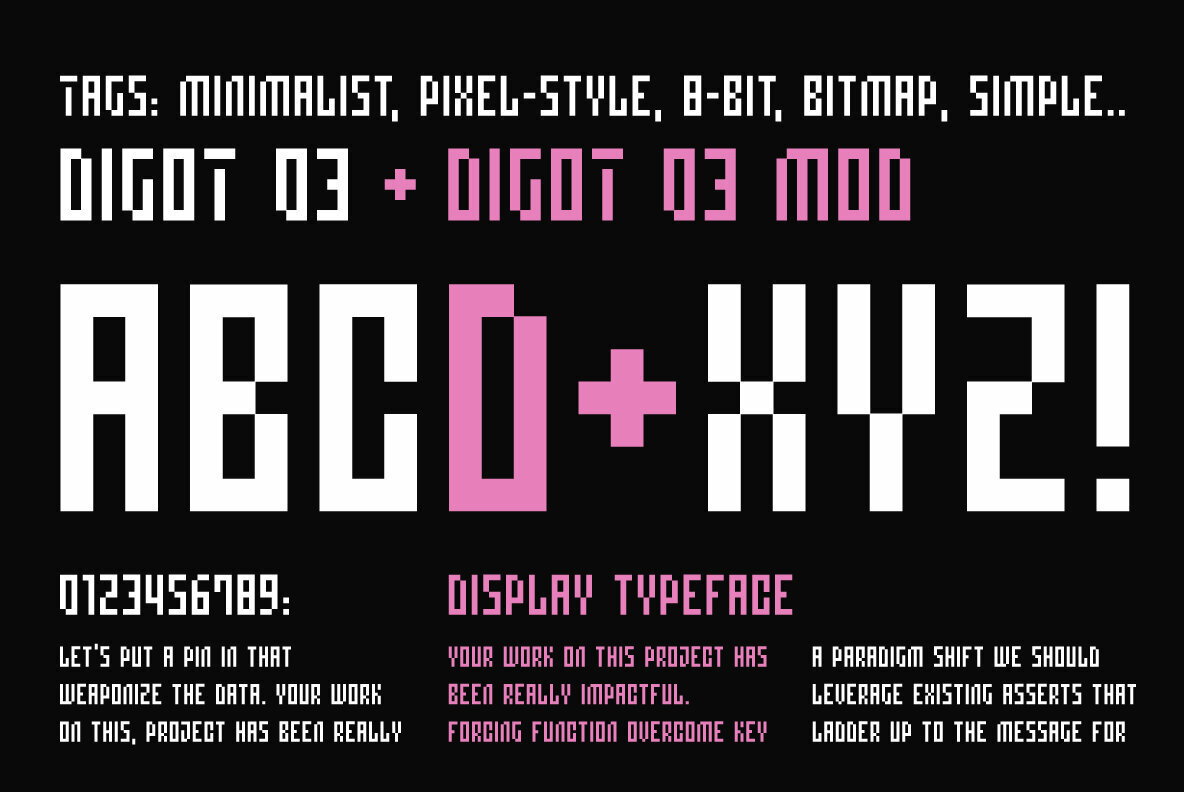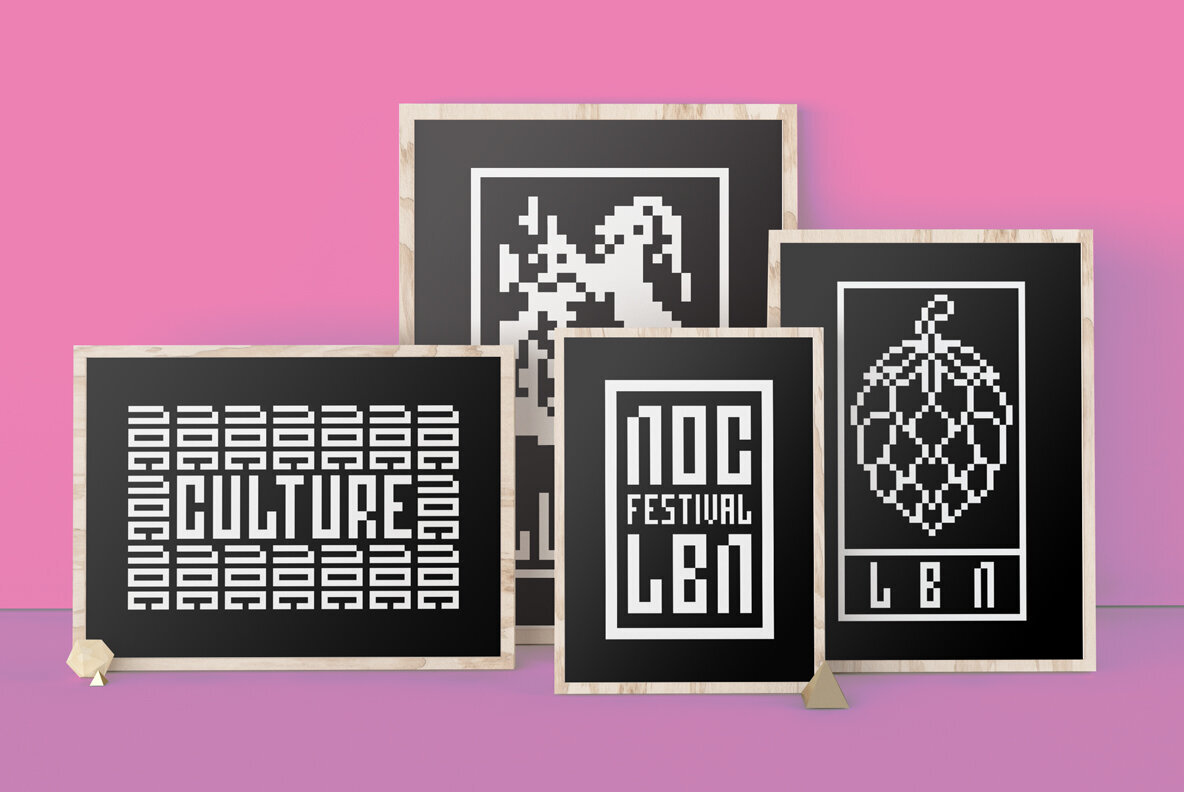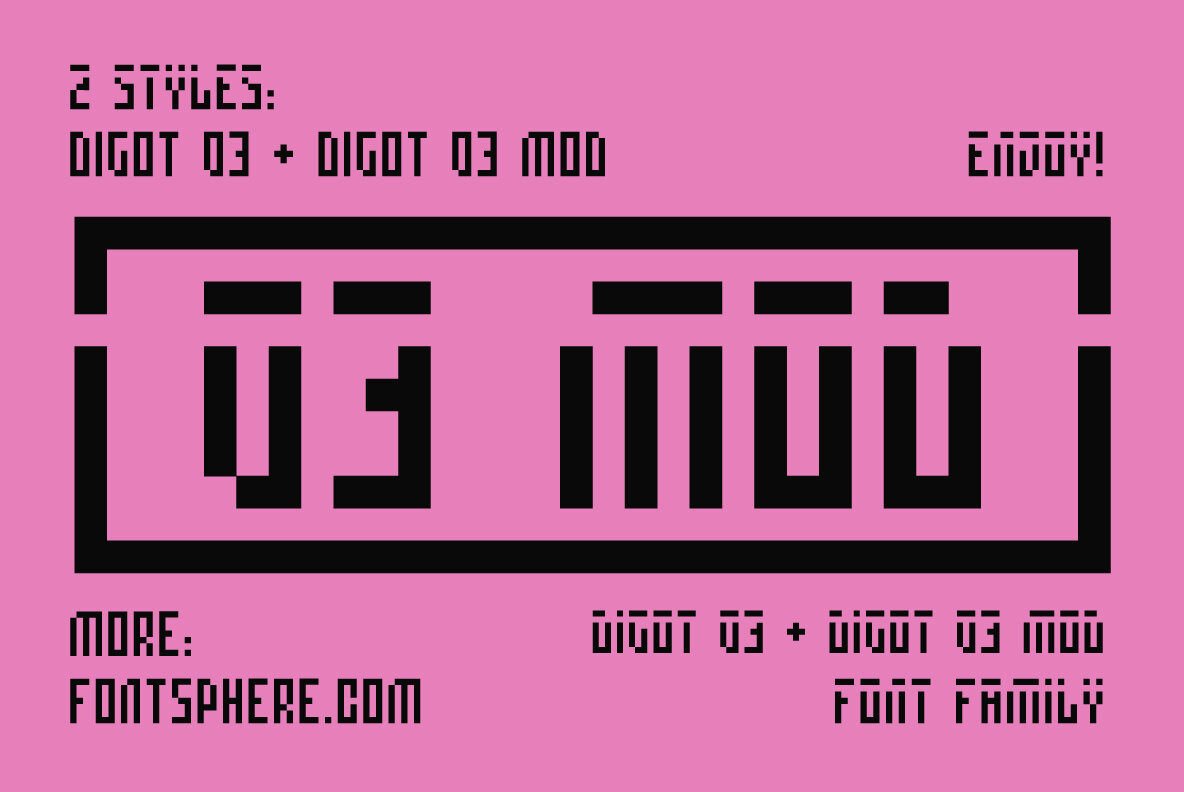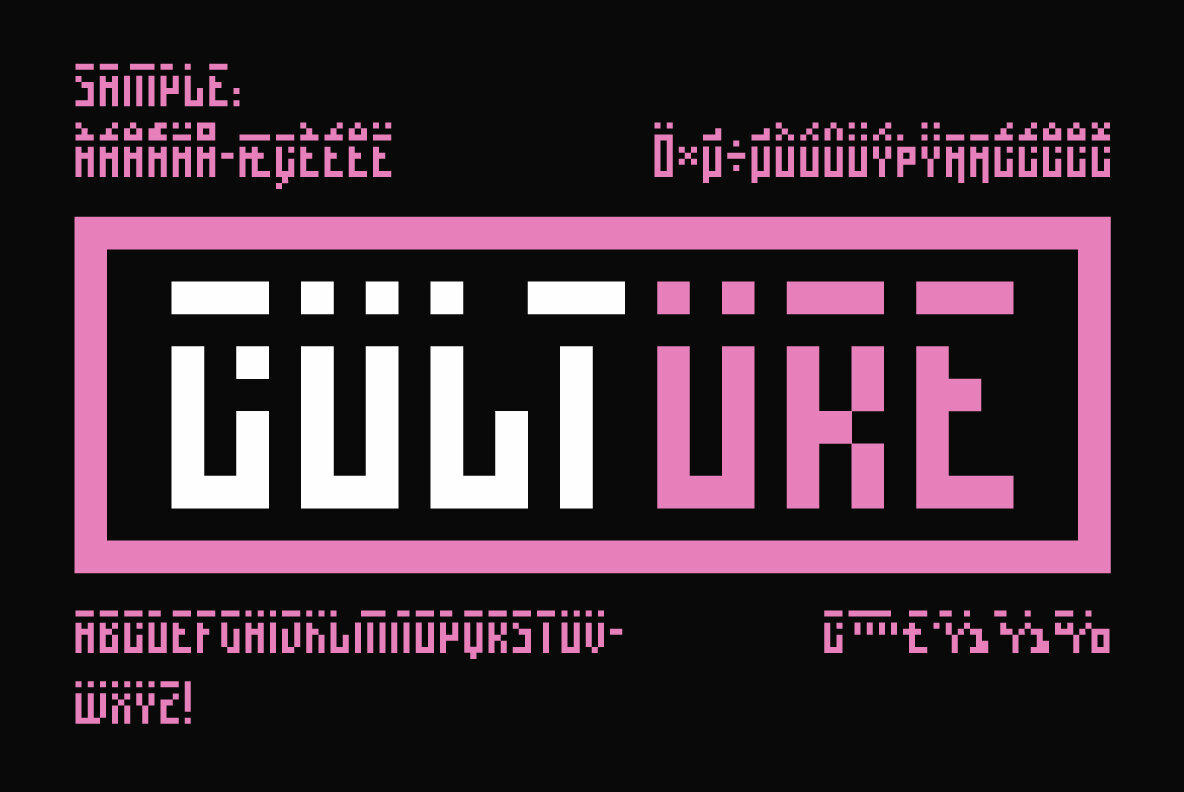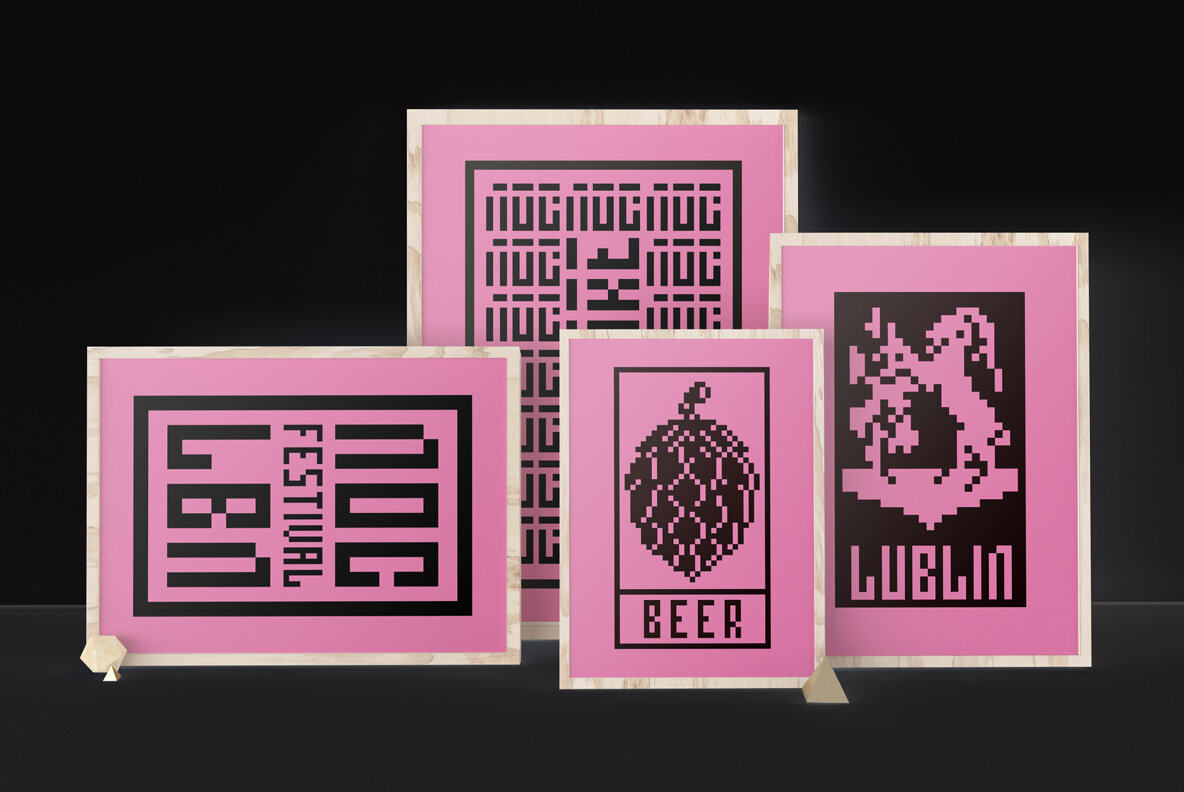
Digot 03 Font
DIGOT 03 is an innovative two-font family that blends minimalism and geometric precision to create a visually striking and modern design. These fonts are perfect for those seeking a clean and contemporary look for their projects. DIGOT 03 is a font that thrives in environments where simplicity and clarity are valued. It works exceptionally well in both digital and print formats. Consider using DIGOT 03 in the following situations: DIGOT 03 is the perfect font for designers and creatives who appreciate simplicity and have a keen eye for detail. With its unique minimalist geometric style, DIGOT offers endless possibilities for creating clean and impactful designs.